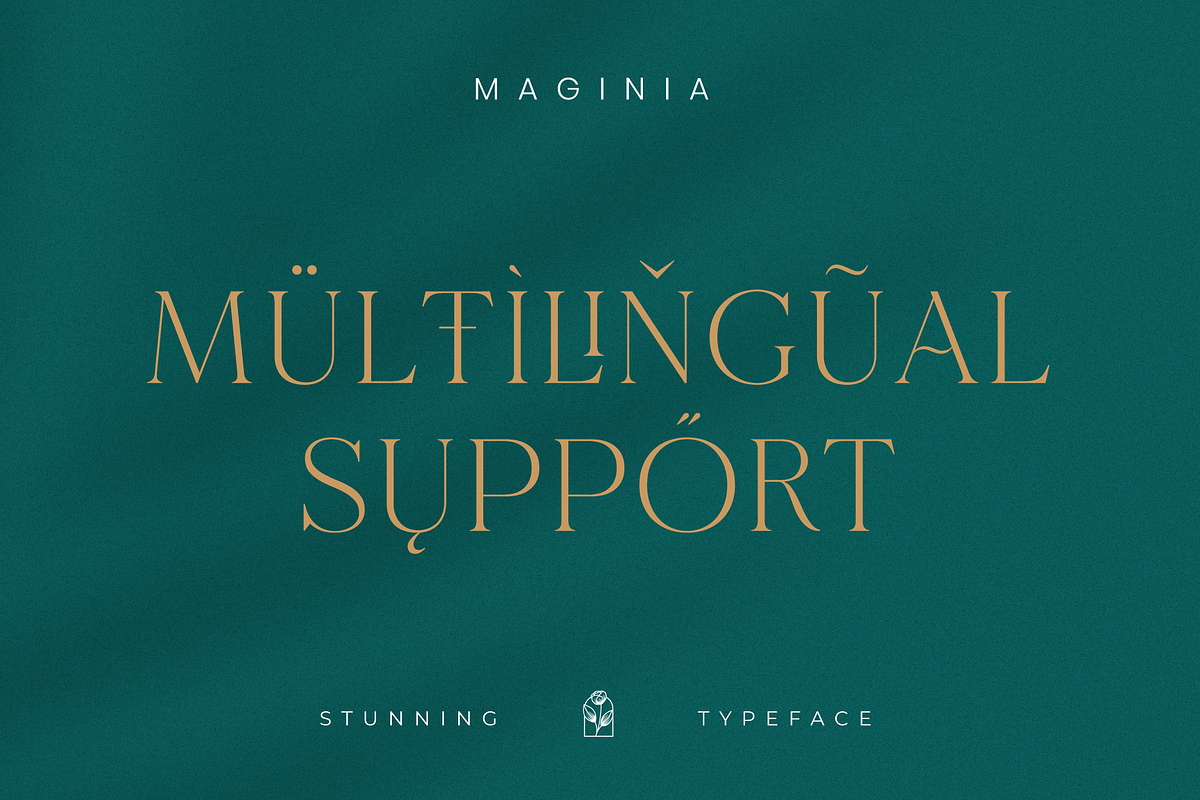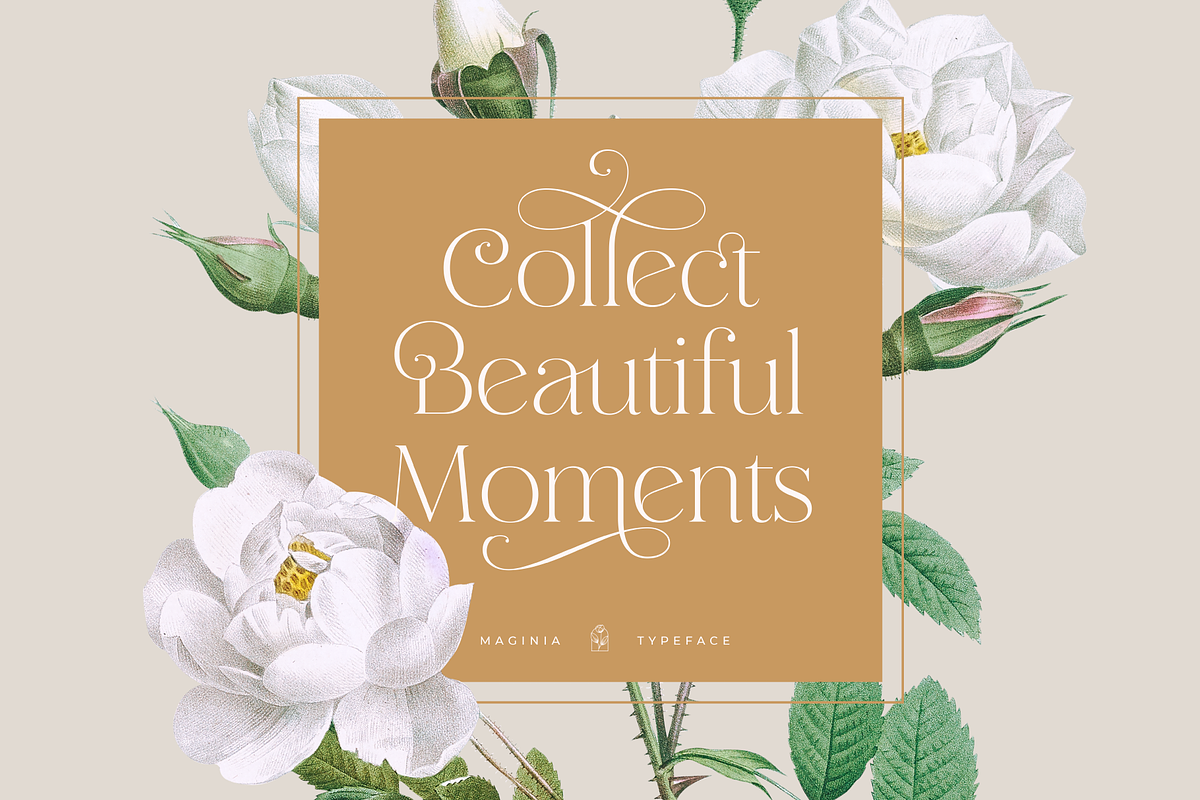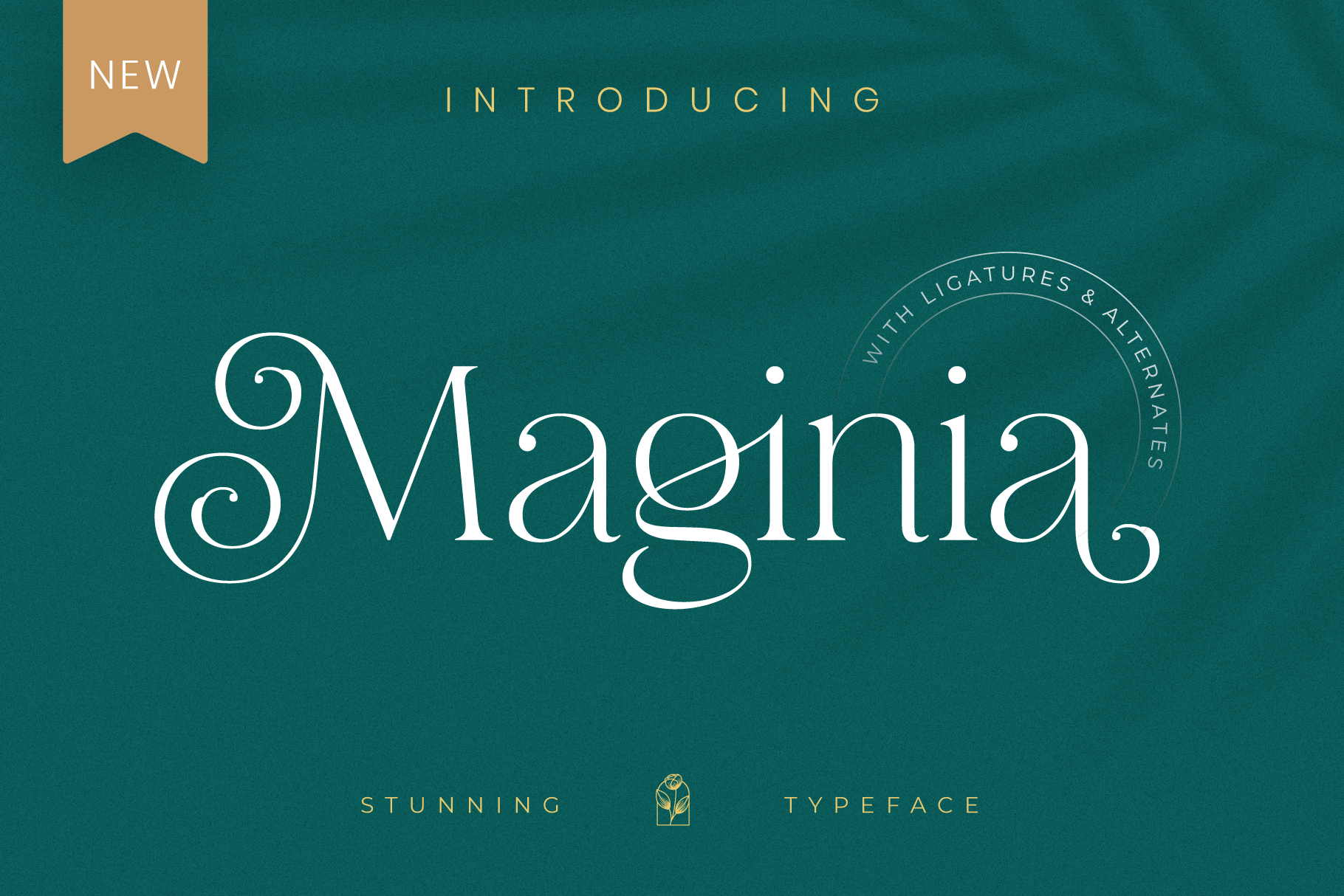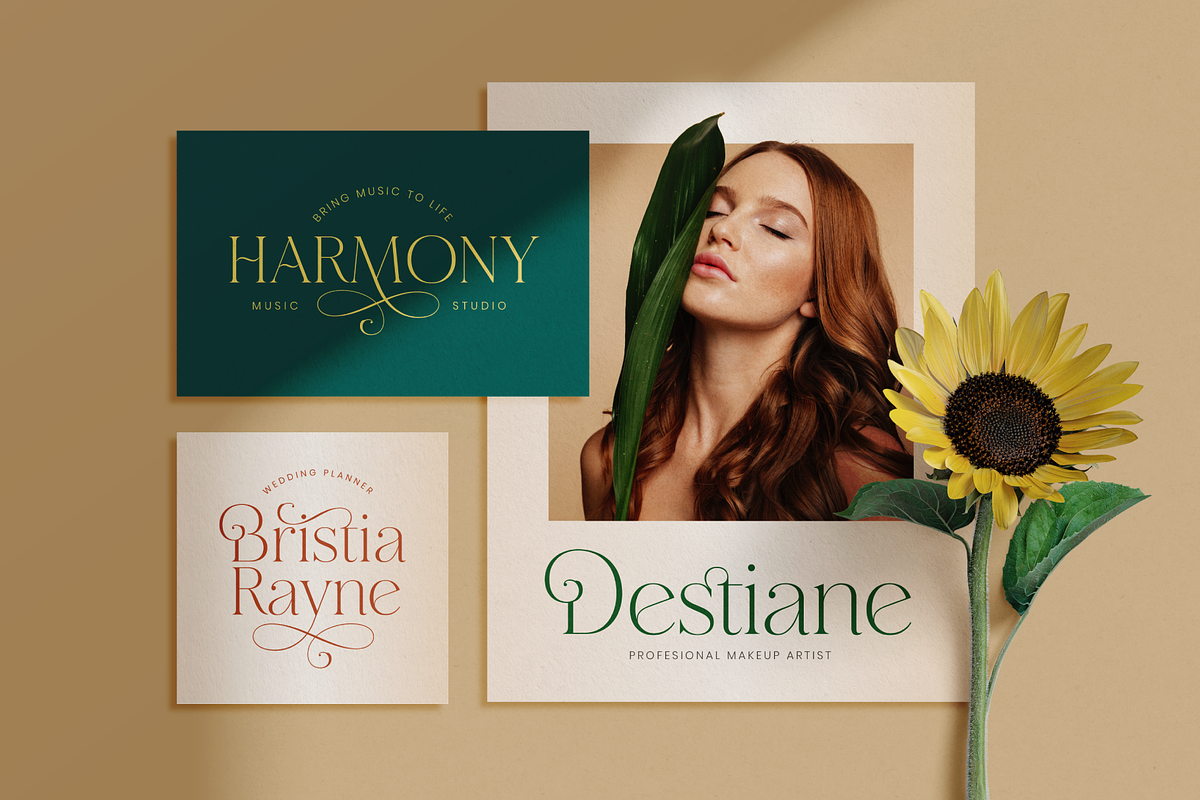
Maginia Font
Maginia font can make your project look more unique, beautiful, and awesome like Magic. Maginia has many alternatives and ligatures making this font very suitable to be applied to various formal forms such as invitations, labels, logos, magazines, books, greeting/wedding cards, packaging, fashion, make-up, stationery, novels, labels, or any kind of purpose.